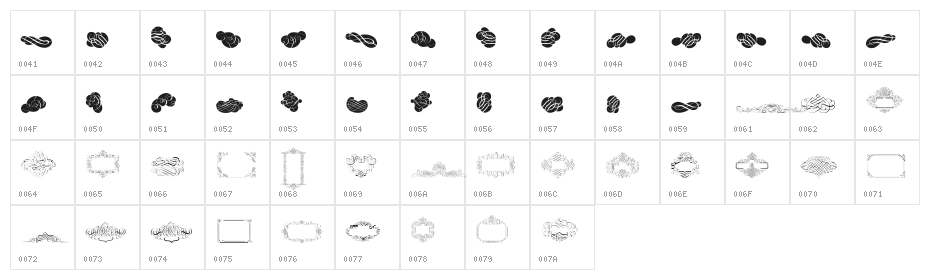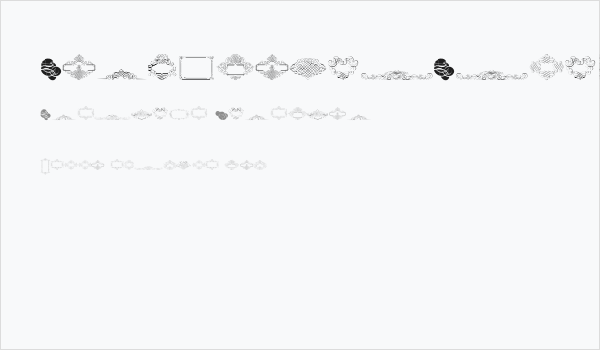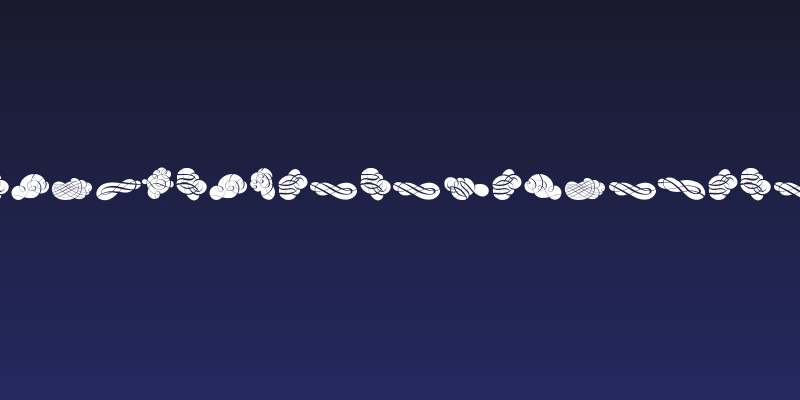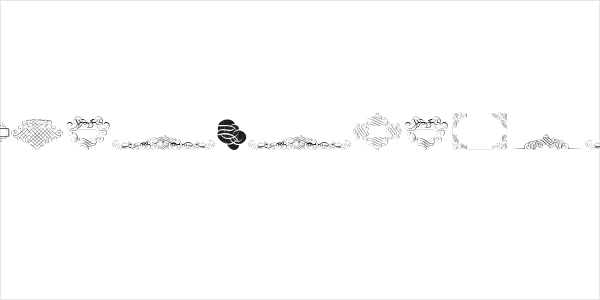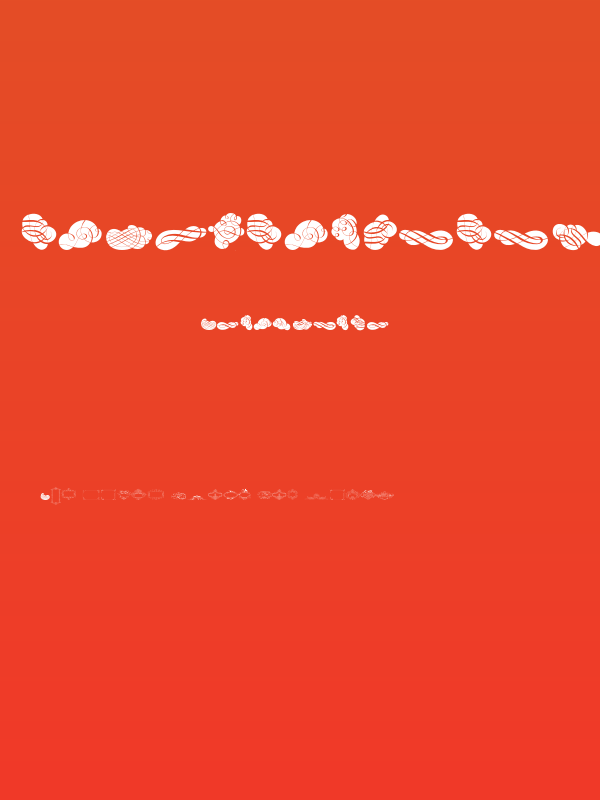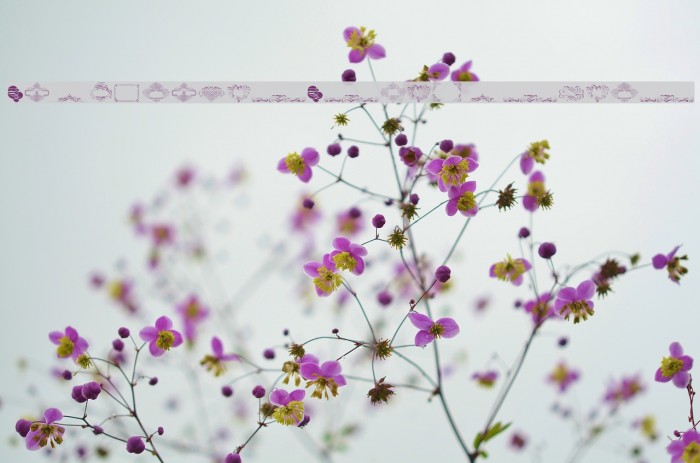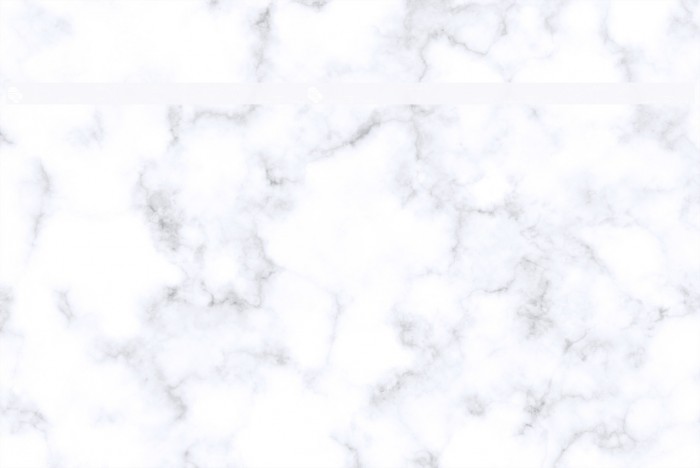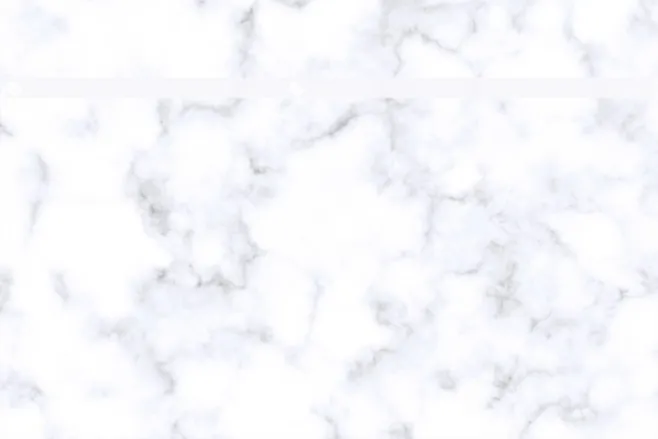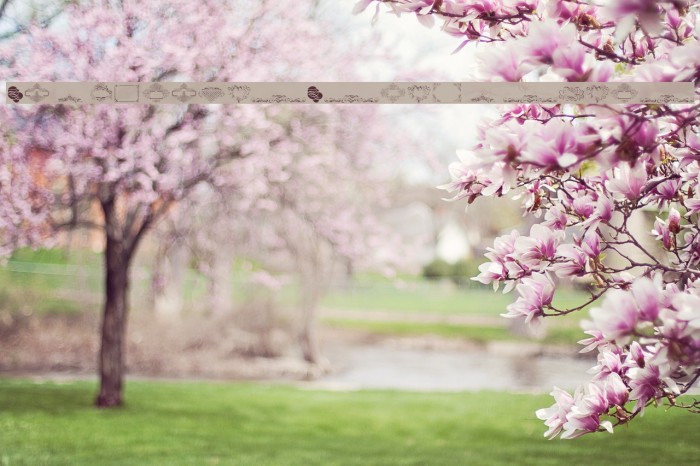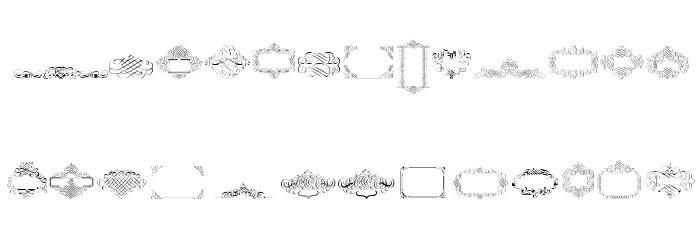
CornucopiaCaligrafica Font
CornucopiaCaligrafica Description
This is a decorative font featuring intricate, swirling designs that resemble calligraphic flourishes. The characters are highly stylized, with elaborate loops and curves that create a sense of elegance and sophistication. The font is primarily ornamental, with each character appearing more like a piece of art than a traditional letterform. The intricate details and flowing lines suggest a vintage or classical aesthetic, making it ideal for projects that require a touch of refinement and artistic flair.
| Use Case | Logos, Invitations, Decorative elements |
| Proposed Projects | Ideal for wedding invitations, luxury branding, decorative certificates, and artistic projects requiring a classical touch. |